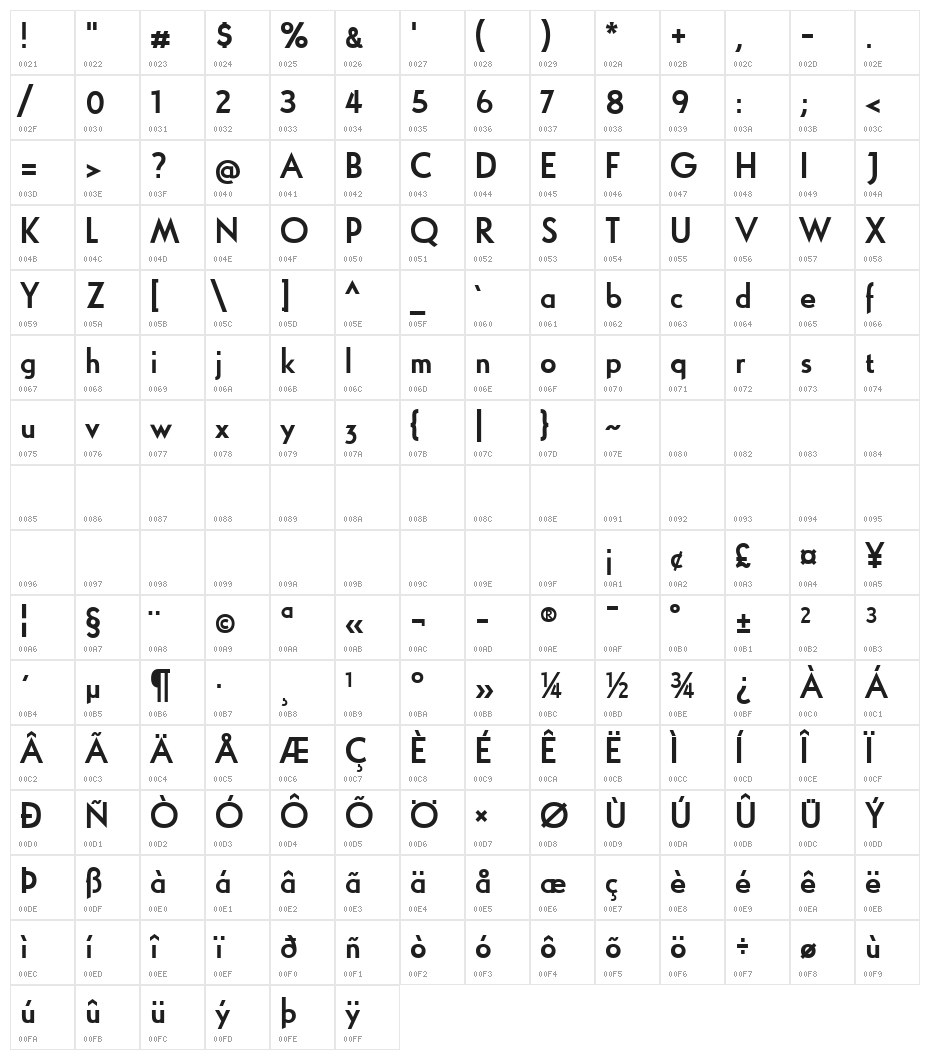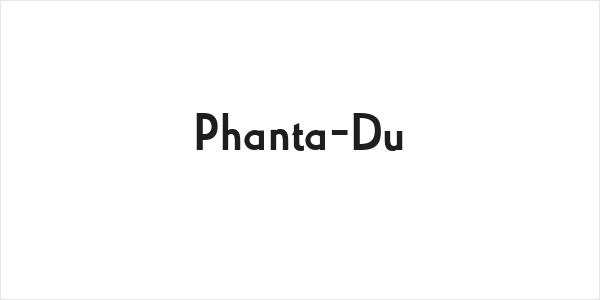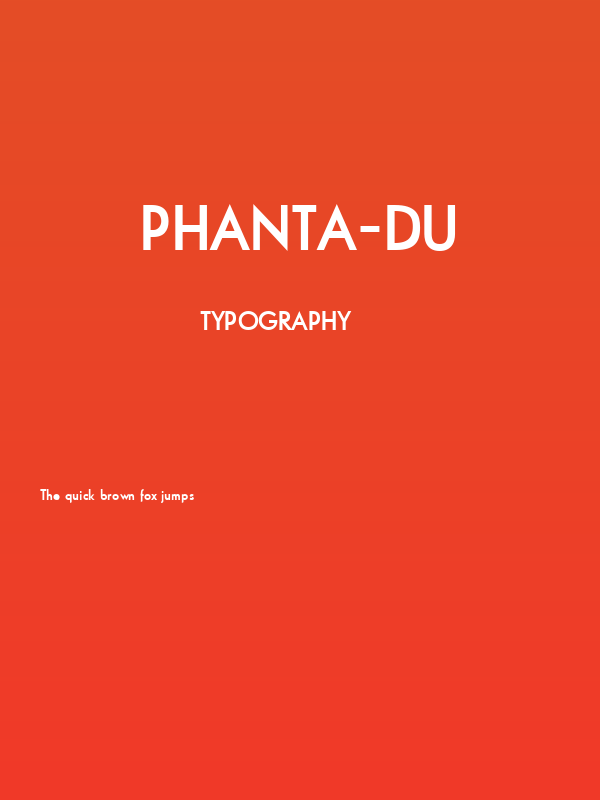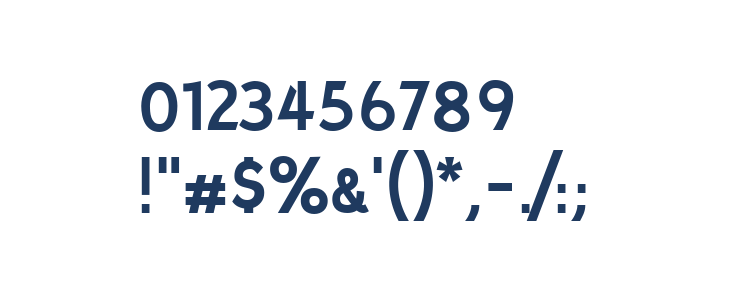
Phanta-Du Font
Phanta-Du Description
This font features a bold and modern sans-serif design, characterized by clean lines and a geometric structure. The uppercase letters are uniform in height, with a slight tapering in strokes that adds a dynamic feel. The lowercase letters maintain a consistent style, with rounded edges that soften the overall appearance. Numbers are clear and legible, matching the boldness of the alphabet. Special characters are well-integrated, ensuring versatility in various applications. The font's design is both functional and aesthetically pleasing, making it suitable for a wide range of uses.
| Use Case | Headlines, Logos, Advertising |
| Proposed Projects | Ideal for branding, advertising, headlines, and digital media projects. |